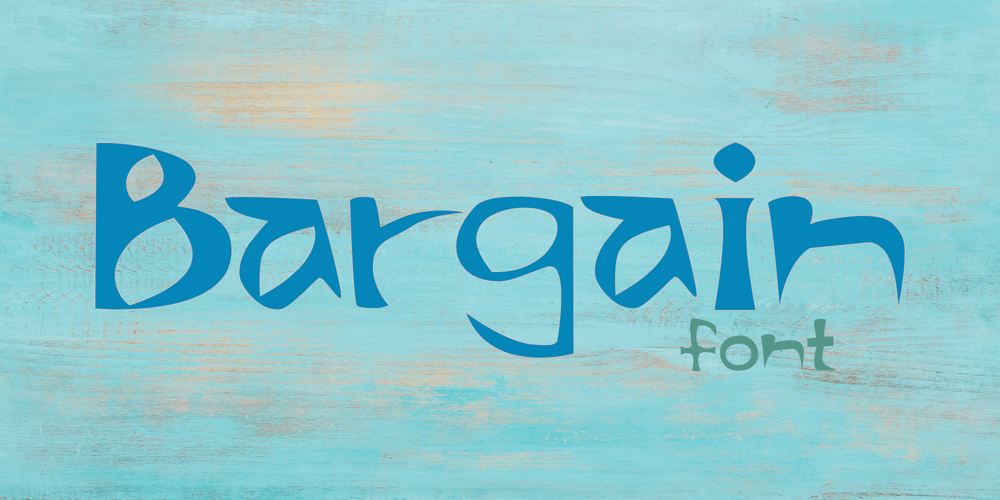
Bargain Font Family was designed by Sol Hess and published by Arkalandara. Bargain contains 1 styles and family package options. Handwriting is a unique and personal expression of language created by individuals using a pen, pencil, or other writing instrument. It encompasses various styles, characteristics, and nuances that make each person’s writing distinctive. Pointed shapes and characters refer to the specific forms and angles of the letters and symbols in a written script.Pointed shapes in handwriting typically involve the presence of sharp angles or well-defined points in the formation of letters. This can contribute to a more angular and edgy appearance in the overall writing style.